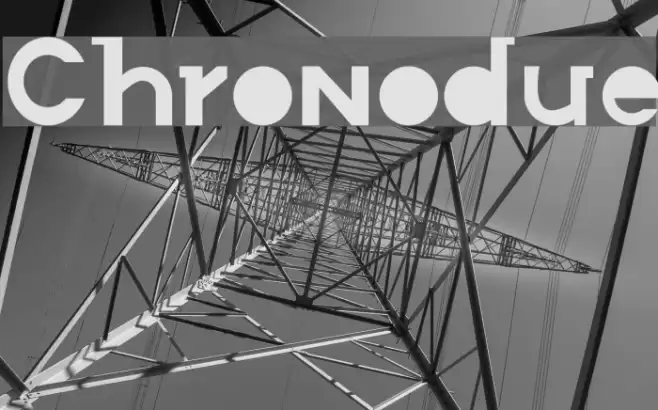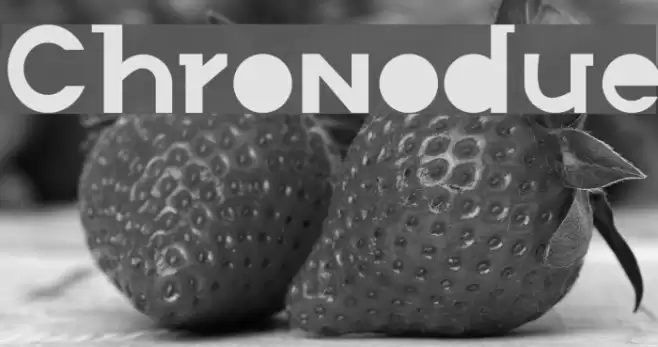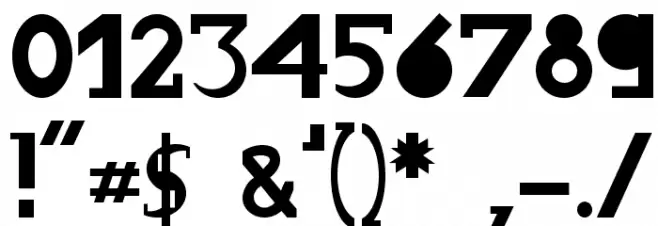
Chronodue Font
Chronodue Description
This font features a bold and geometric design with a distinct Art Deco influence. The characters are constructed with strong, angular lines and sharp edges, giving them a modern and striking appearance. The uppercase letters are particularly bold, with some characters incorporating unique cutouts and shapes that add to the font's decorative nature. The lowercase letters maintain the geometric style but with slightly softer curves, providing a nice contrast to the uppercase set. The numerals are consistent with the overall style, featuring bold and angular forms. Special characters are designed to match the boldness and geometric nature of the font, making it suitable for various creative applications.
A bold, geometric font with Art Deco influences and decorative elements from Uncategorized fonts.
- Proposed Projects: Ideal for branding, poster design, and any project requiring a bold, decorative typeface.
- Overall Style: Modern, Decorative